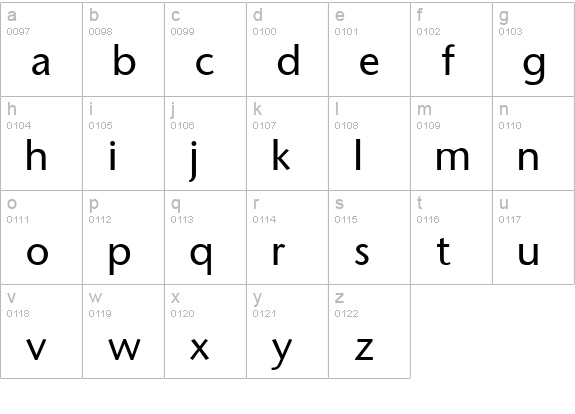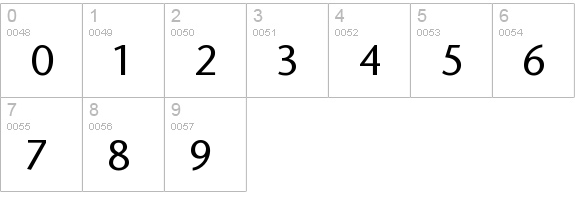
FasseSans Font Details
FasseSans is a modern and versatile font that adds a touch of elegance to any design project. With its clean lines and balanced proportions, FasseSans is perfect for a wide range of applications, from branding to editorial design. This sans-serif typeface exudes a sense of sophistication and professionalism, making it ideal for both digital and print projects. What sets FasseSans apart is not just its timeless design, but also the fact that it is available for free download at FontsMarket.com. This means that designers and creatives can easily access this high-quality font without any cost, making it a valuable addition to their font library. Whether you're working on a website, a logo, a poster, or any other design project, FasseSans offers the versatility and style you need to make your work stand out. Download FasseSans today and elevate your designs with this exceptional font.